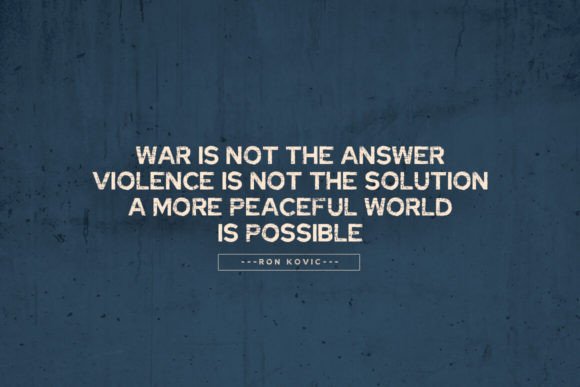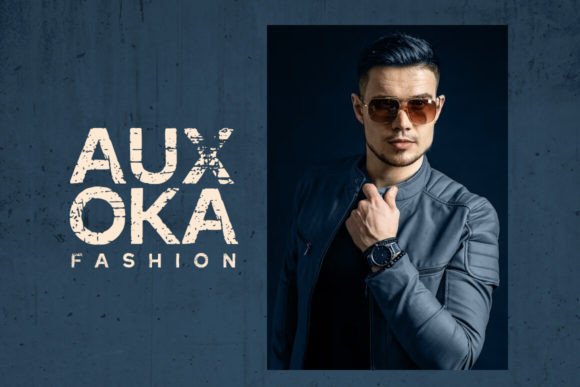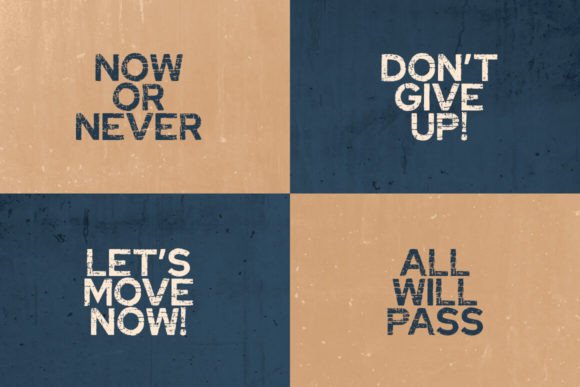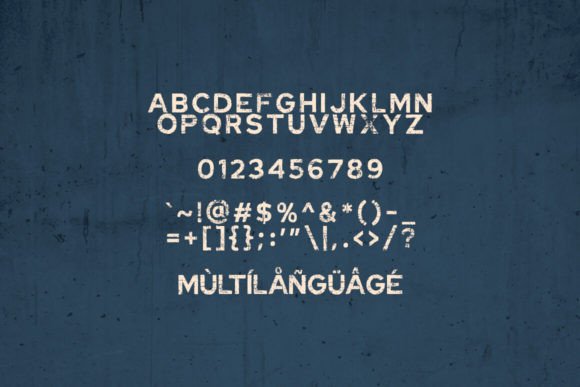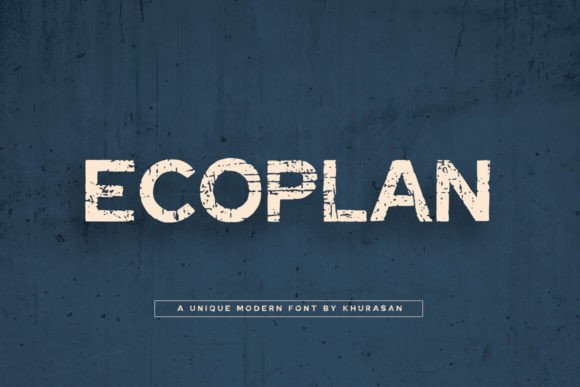
Ecoplan Font: The Modern Sans Serif for Creative Designs
In the world of typography, fonts play a crucial role in making or breaking a design. A perfect font can elevate your creative project, making it stand out from the crowd. If you’re a designer or crafter looking for a modern sans serif rough font to add a touch of quirkiness to your work, look no further than Ecoplan Font. In this article, we’ll dive into the features and benefits of Ecoplan Font, and explore how it can be used to create stunning designs.
What is Ecoplan Font?
Ecoplan Font is a modern sans serif rough font designed to add a unique touch to your creative projects. Its rough texture and sans serif style make it perfect for a wide range of applications, from posters and logos to magazines, book covers, banners, and more. With Ecoplan Font, you can create designs that are both visually appealing and attention-grabbing.
Key Features of Ecoplan Font
- Modern Sans Serif Style: Ecoplan Font boasts a modern sans serif style that is both clean and elegant.
- Rough Texture: The font’s rough texture adds a touch of quirkiness, making it perfect for designs that require a bit of edge.
- Versatile: Ecoplan Font can be used for a wide range of projects, from posters and logos to magazines, book covers, and banners.
- Easily Customizable: The font is easily customizable, allowing you to match it to your project’s specific needs.
Benefits of Using Ecoplan Font
So, why choose Ecoplan Font for your creative projects? Here are just a few benefits of using this amazing font:
- Stand Out Designs: Ecoplan Font is designed to make your designs stand out from the crowd. Its unique style and rough texture ensure that your project will grab attention.
- Easy to Use: The font is easy to use and can be easily integrated into your design workflow.
- Highly Versatile: Ecoplan Font can be used for a wide range of projects, making it a great addition to your font library.
- Perfect for Creative Projects: Whether you’re a designer, crafter, or DIY enthusiast, Ecoplan Font is perfect for creative projects that require a modern and quirky touch.
How to Use Ecoplan Font
- Pair it with Other Fonts: Ecoplan Font can be paired with other fonts to create a unique and visually appealing design.
- Experiment with Colors: The font looks great in a variety of colors, so don’t be afraid to experiment and find the perfect hue for your design.
- Use it for Headings and Titles: Ecoplan Font is perfect for headings and titles, adding a touch of quirkiness to your design.